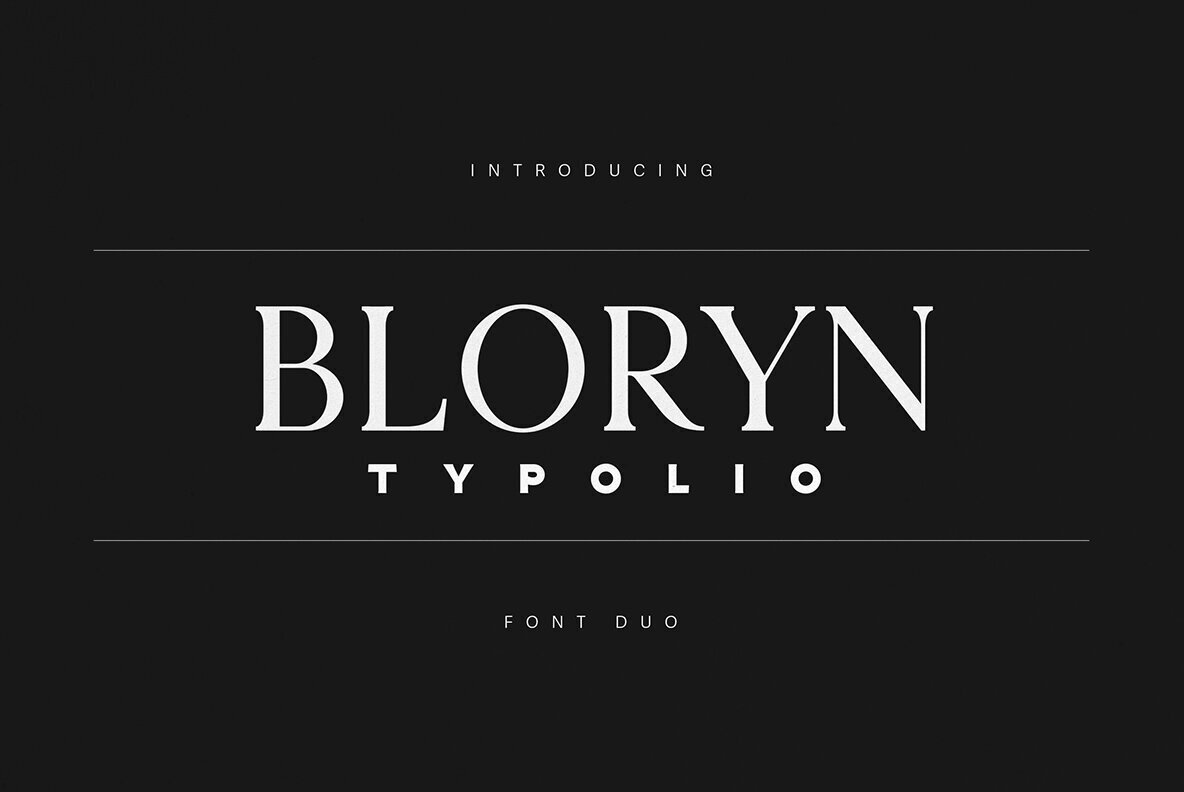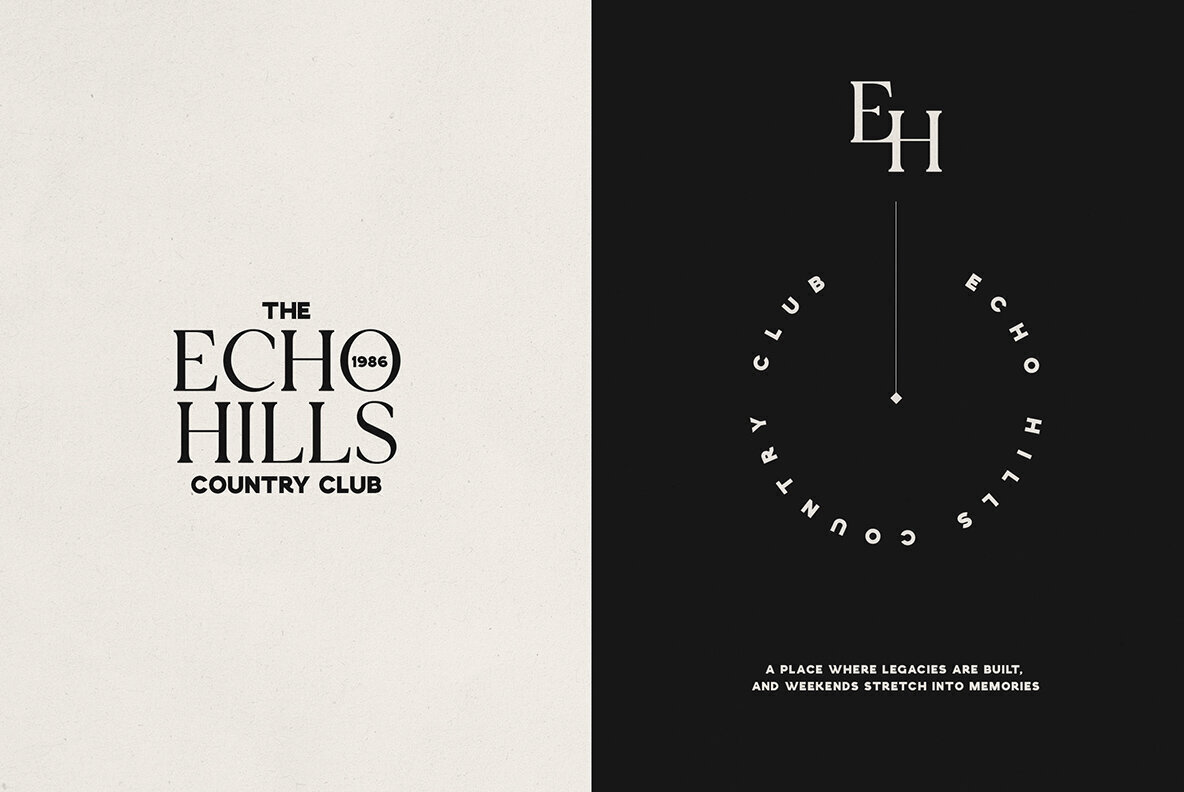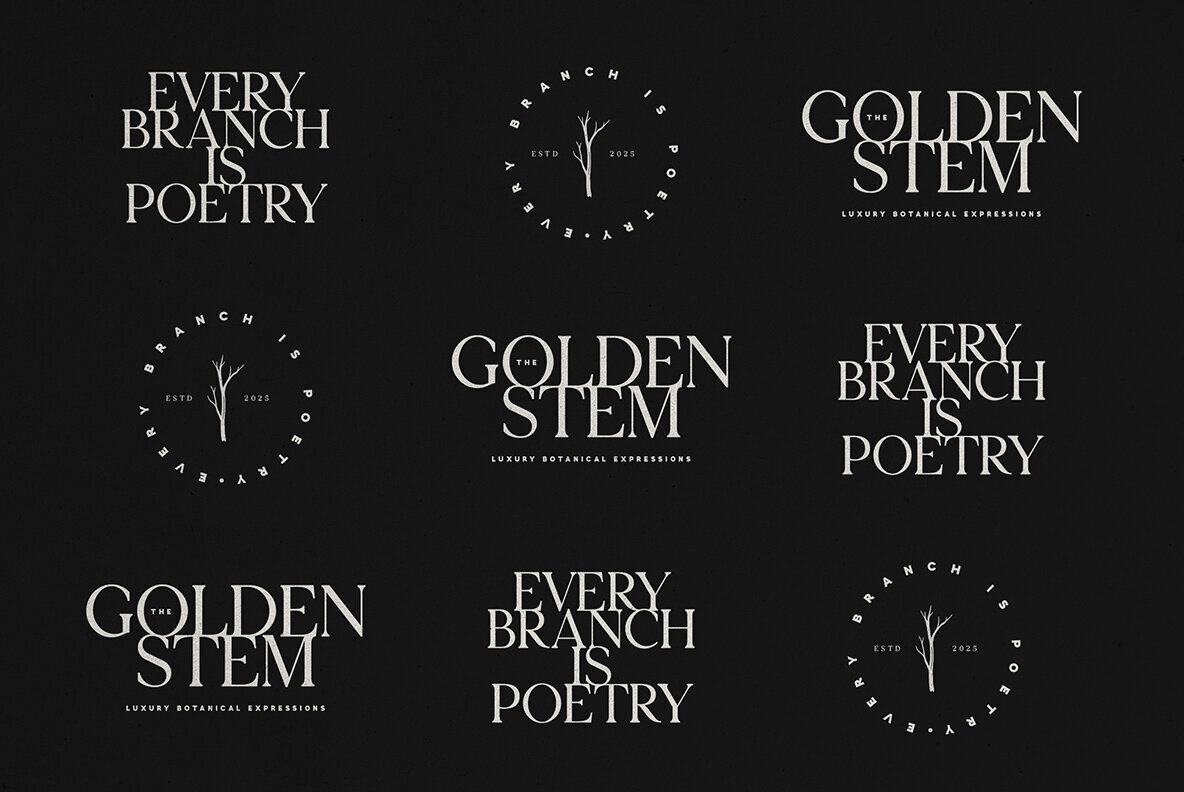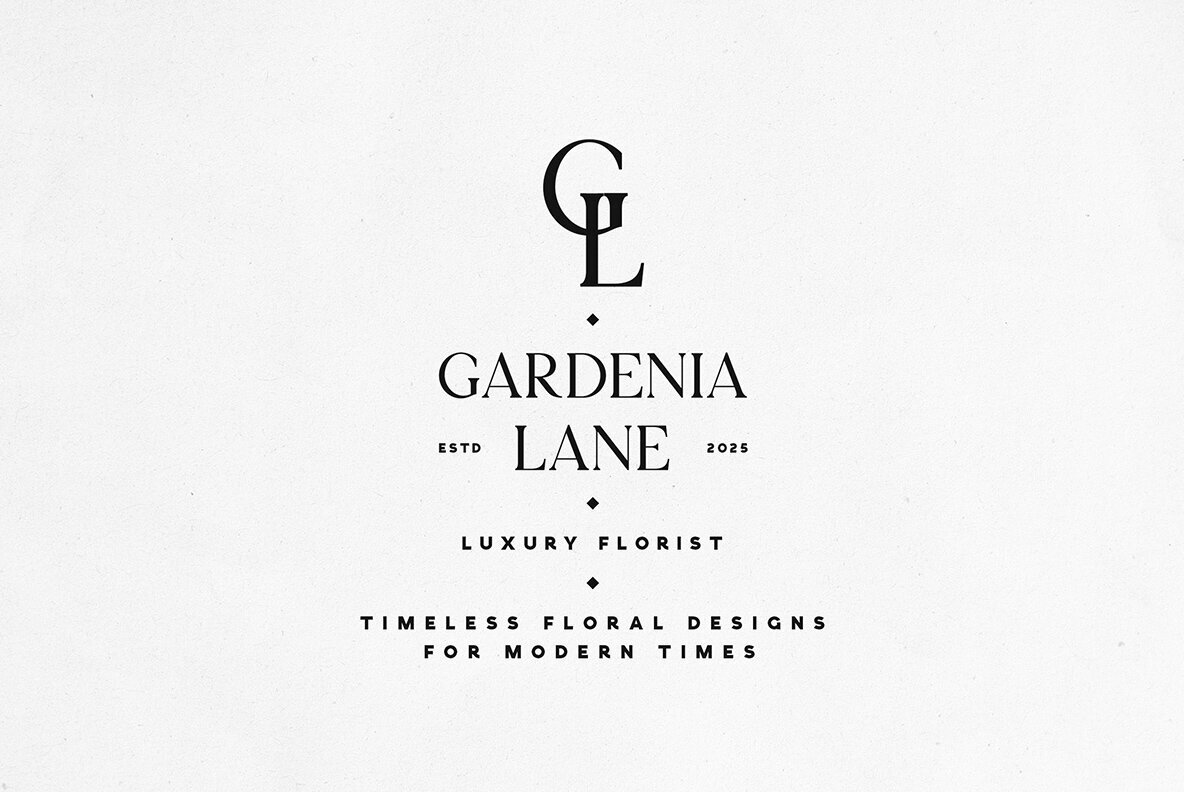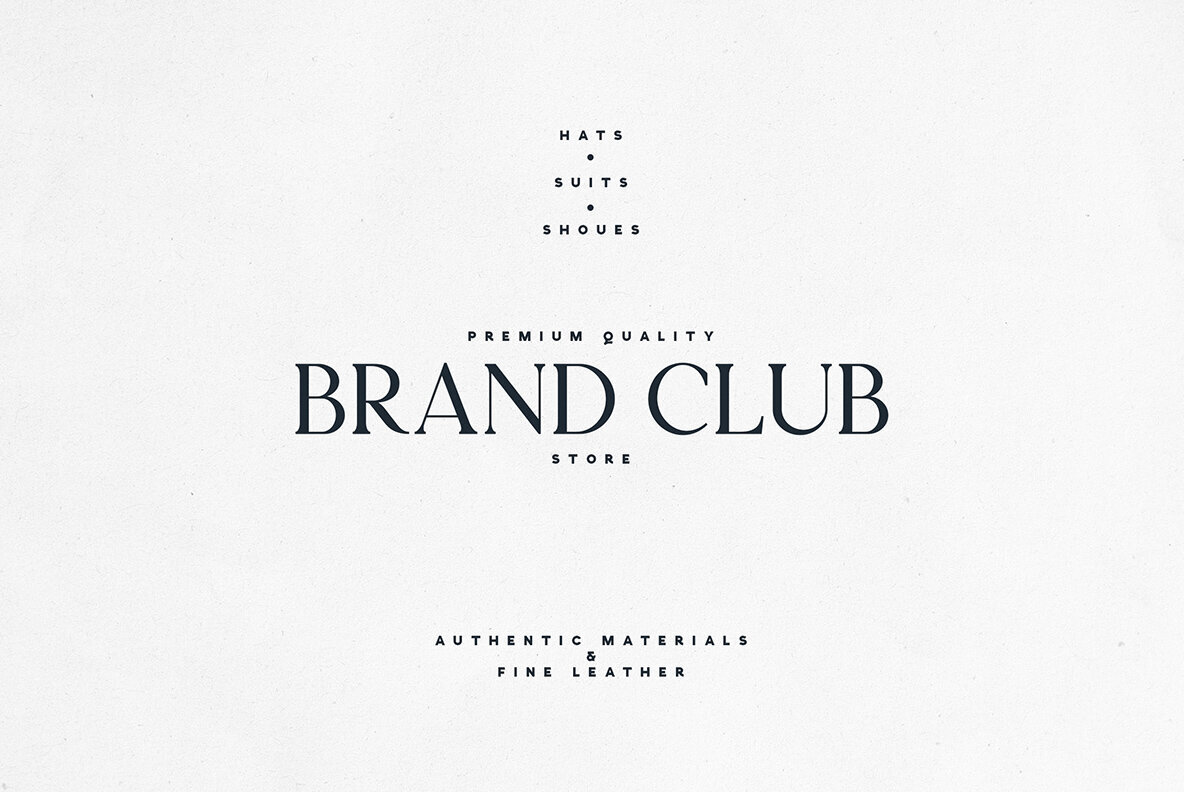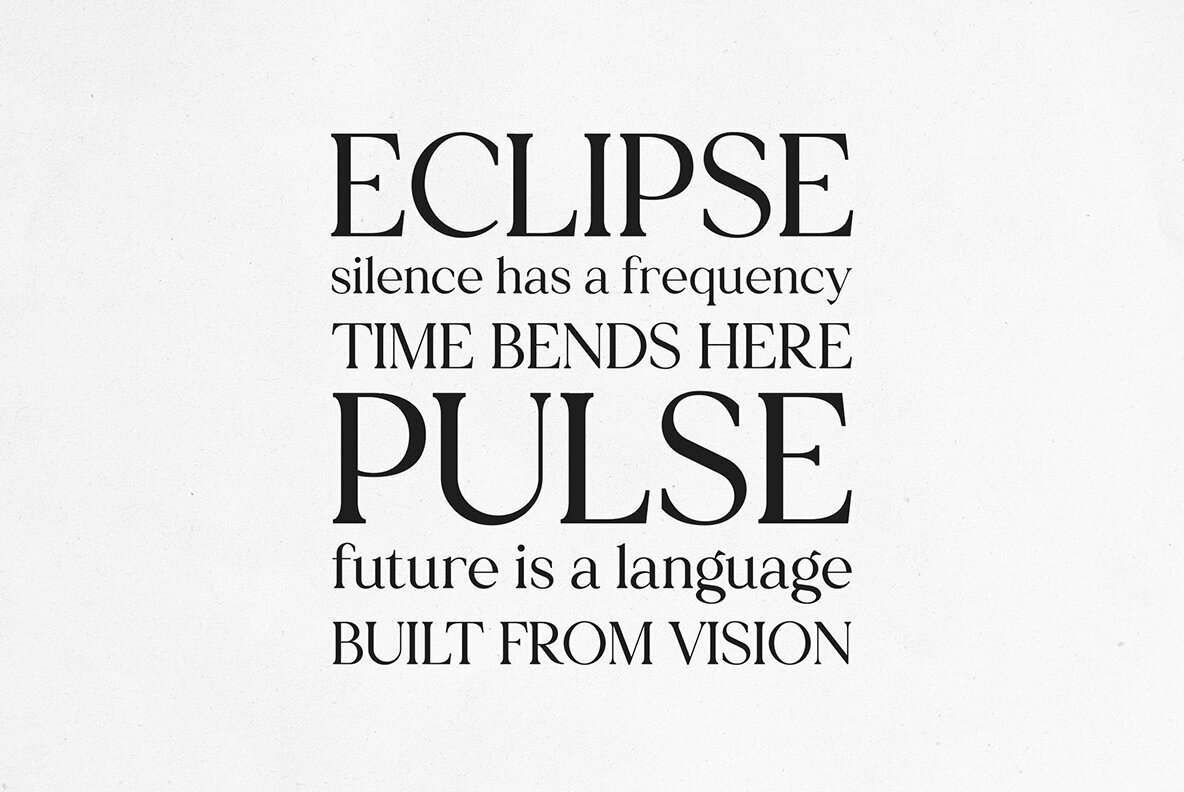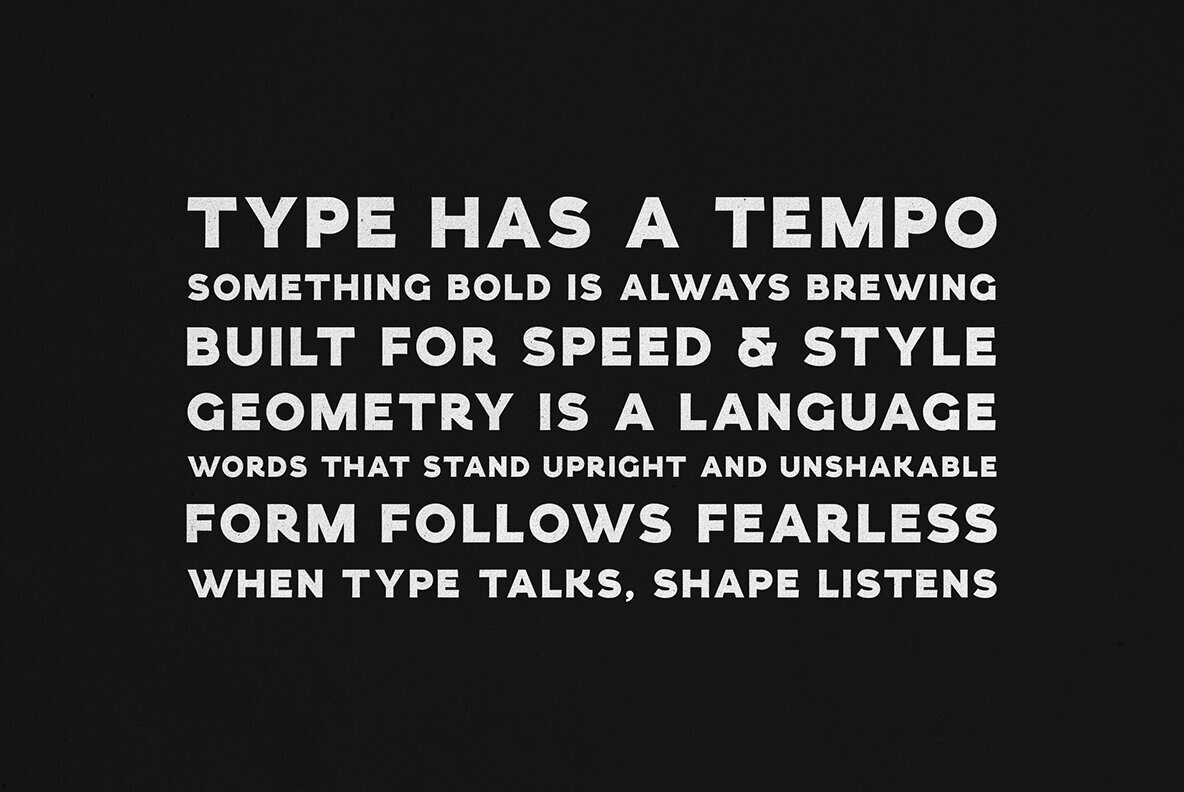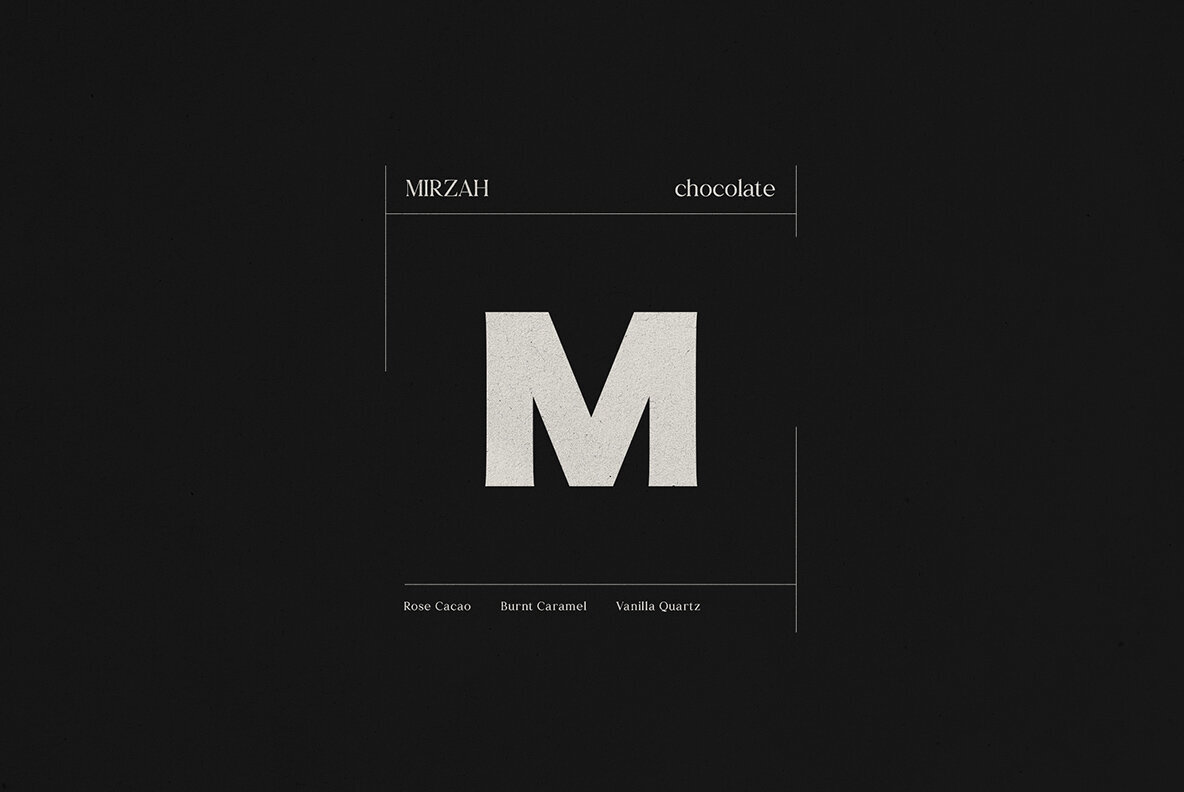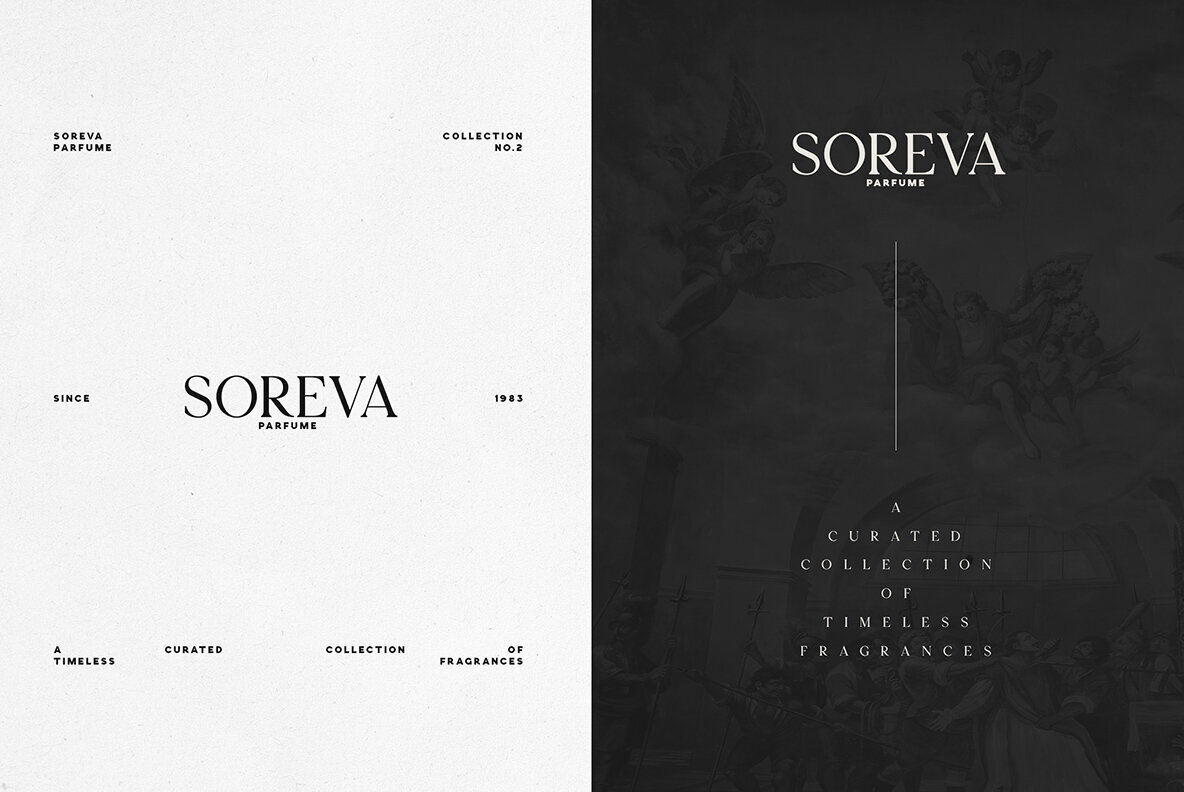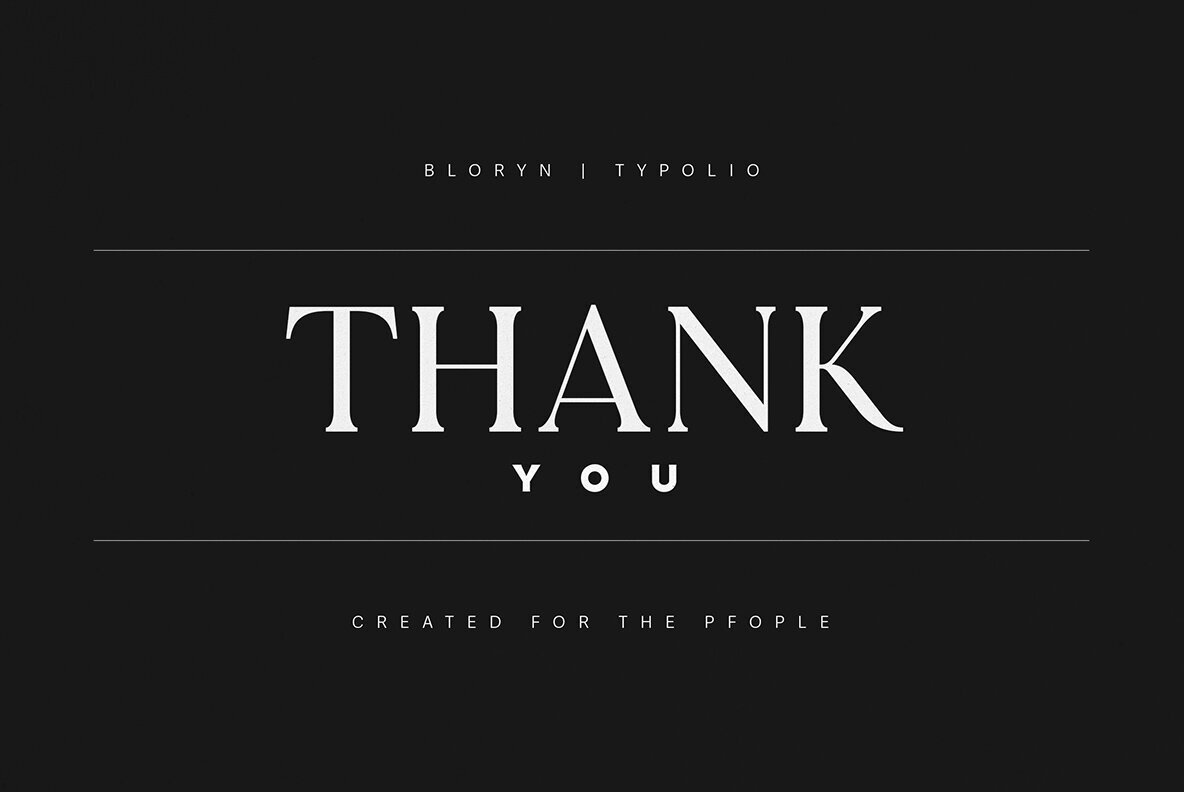
Bloryn Typolio Font
Bloryn Typolio is a refined font duo merging classic sophistication with geometric clarity. Featuring a striking contrast between an elegant serif display and a clean geometric sans, this typeface pair brings balance and style to modern branding projects. Each detail—sharp serifs, smooth lines, and subtle geometry—expresses a careful balance of timeless tradition and contemporary minimalism. Ideal for brands seeking a confident and luxurious presence, Bloryn Typolio is tailored for high-end fashion labels, editorial design, wellness branding, architecture studios, and boutique identities. The harmonious pairing adapts seamlessly across logos, packaging, magazine spreads, invitations, and sophisticated digital layouts. Designers benefit from effortless visual harmony and versatility, no matter the project.Bloryn Typolio Font Duo — Timeless Elegance Meets Modern Boldness